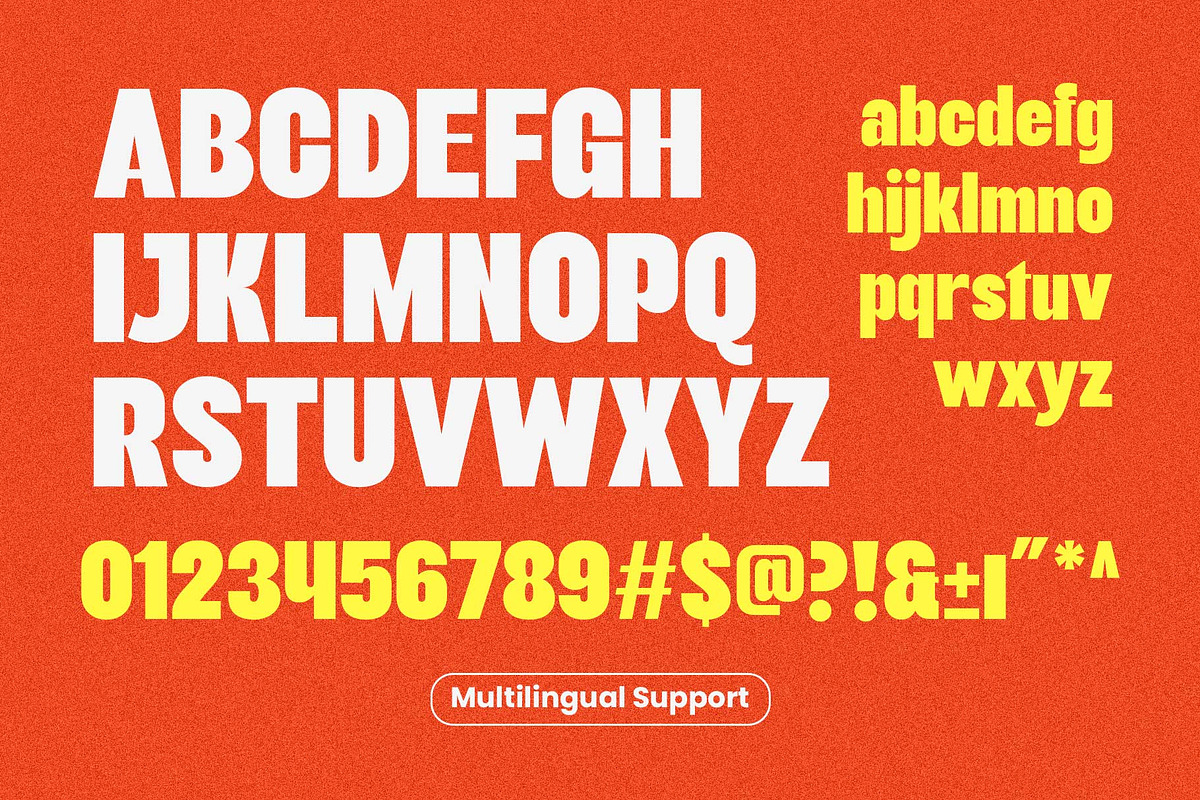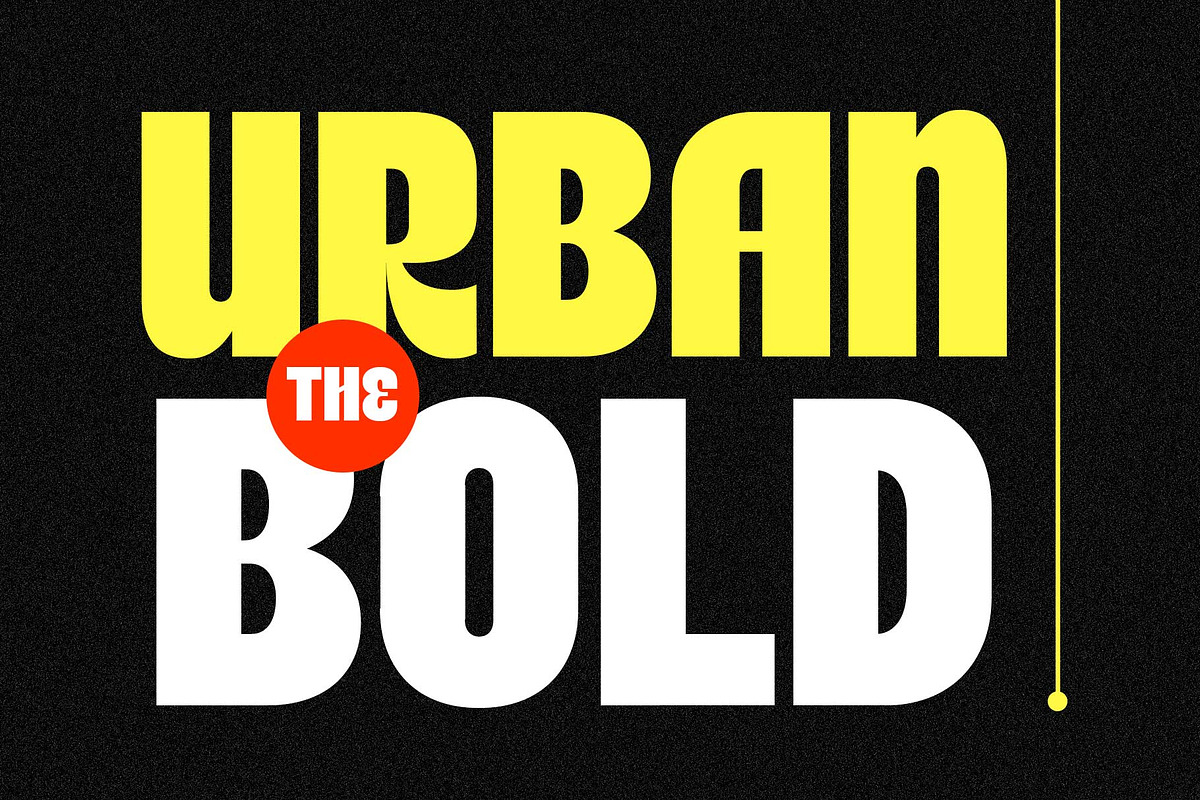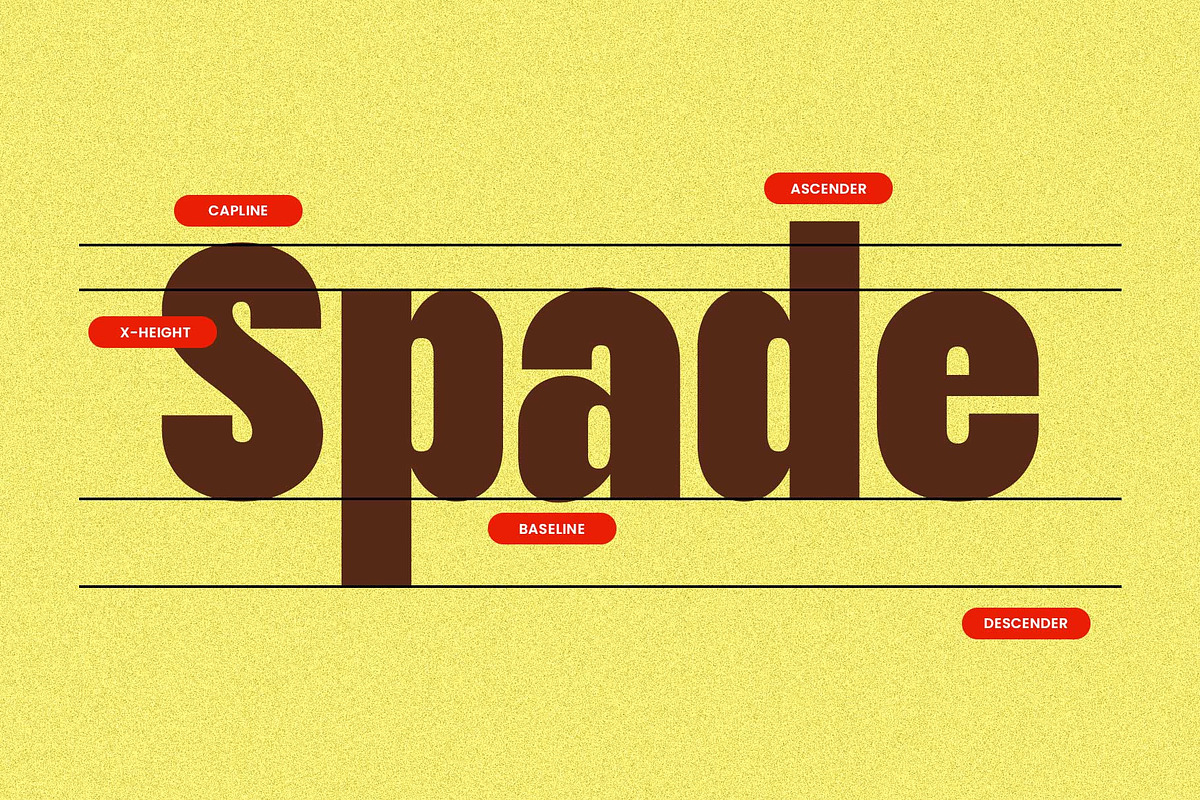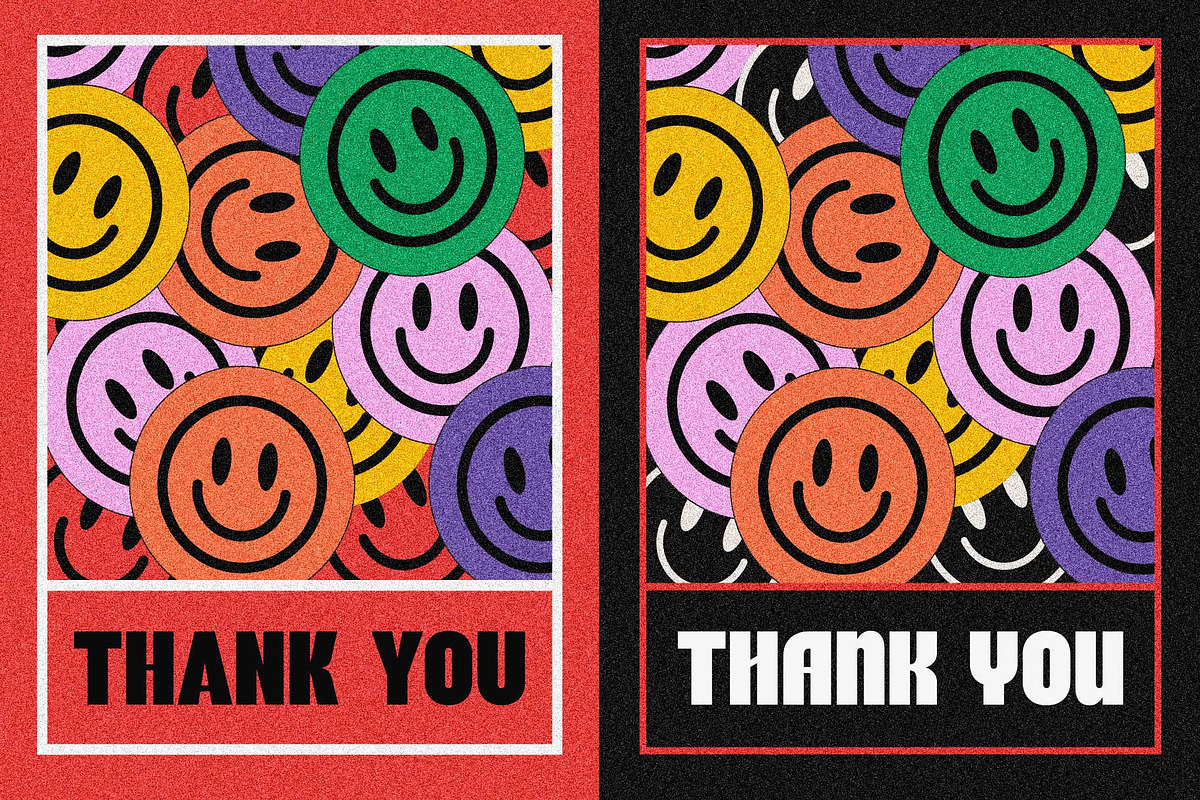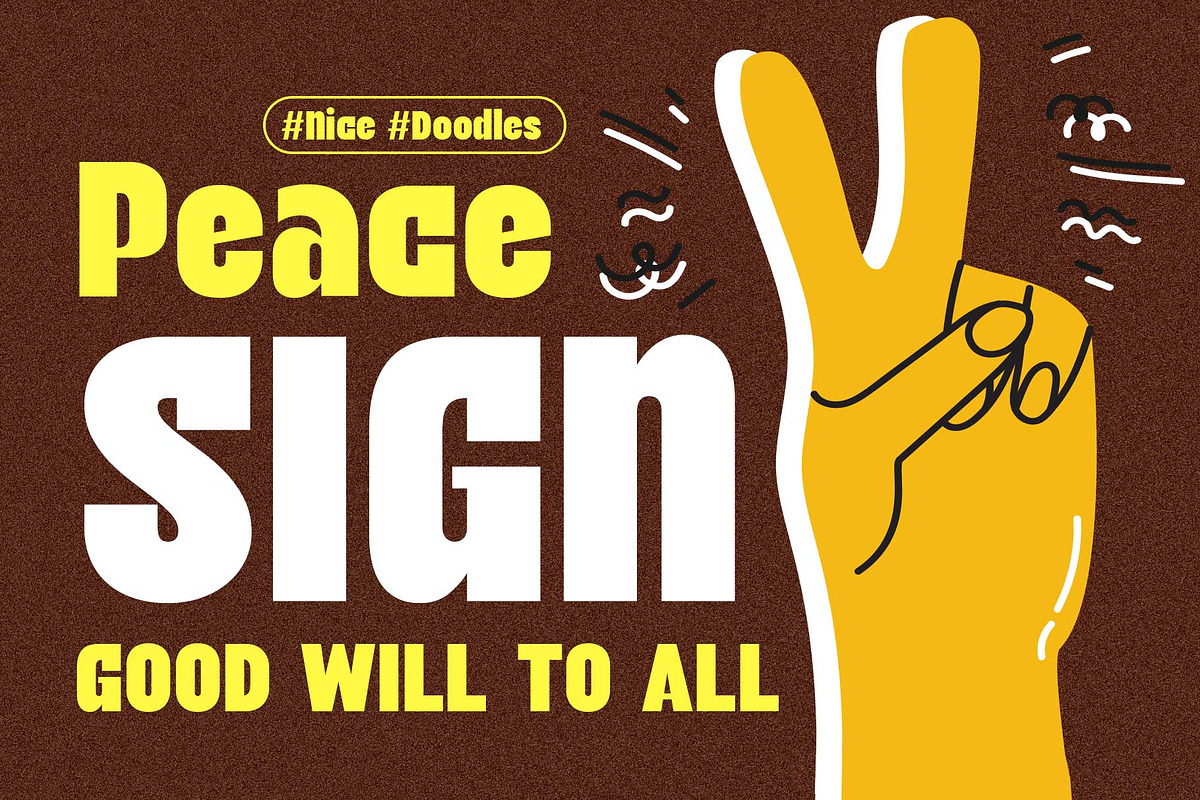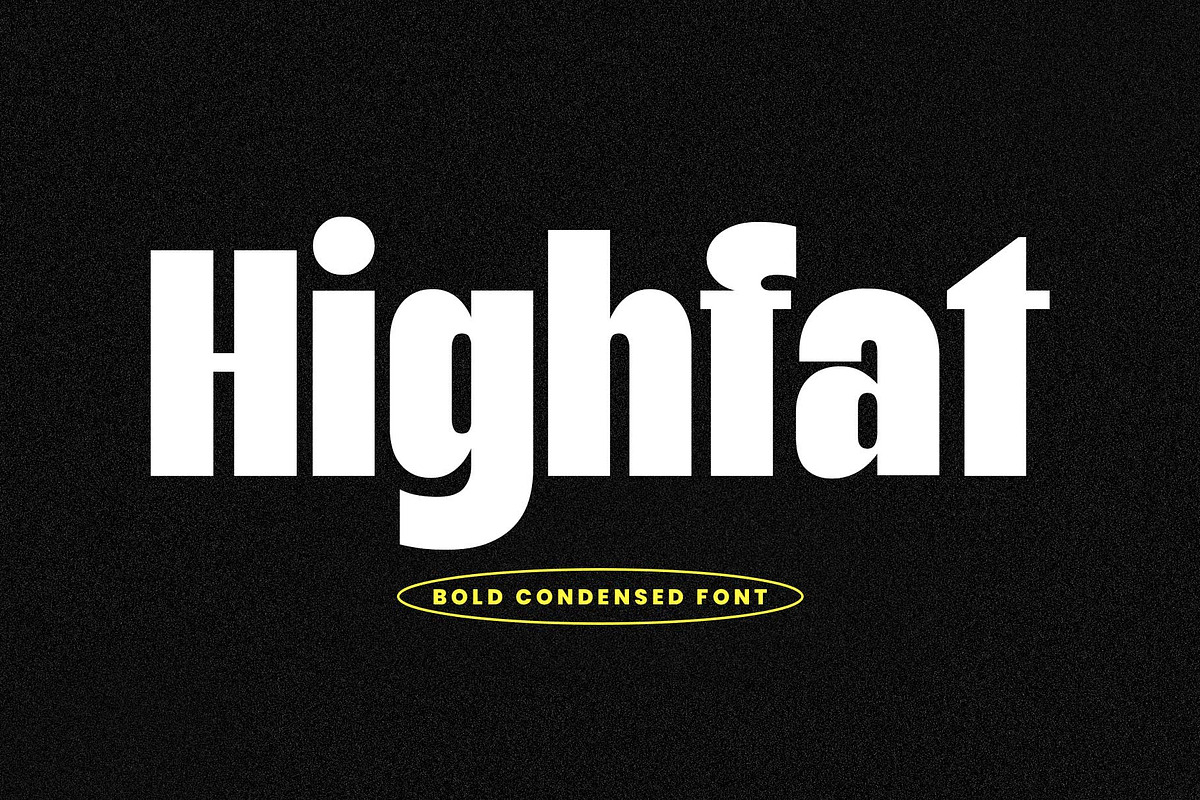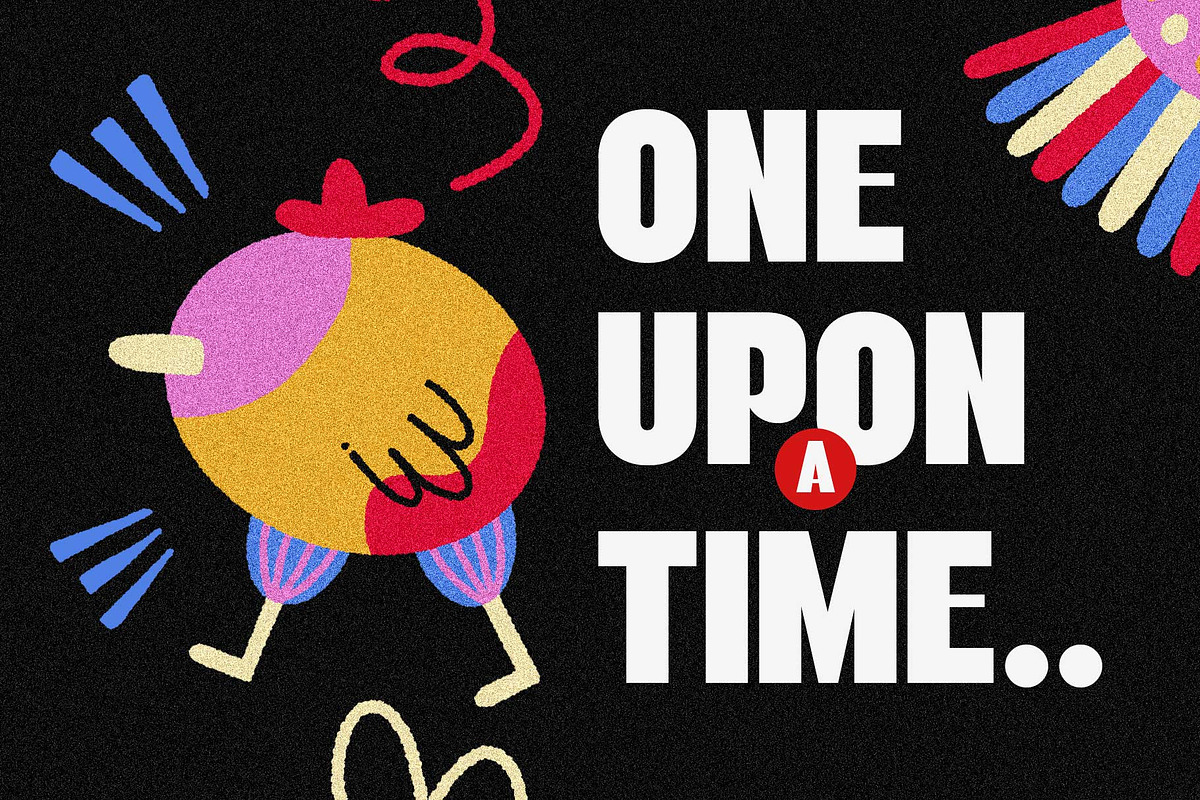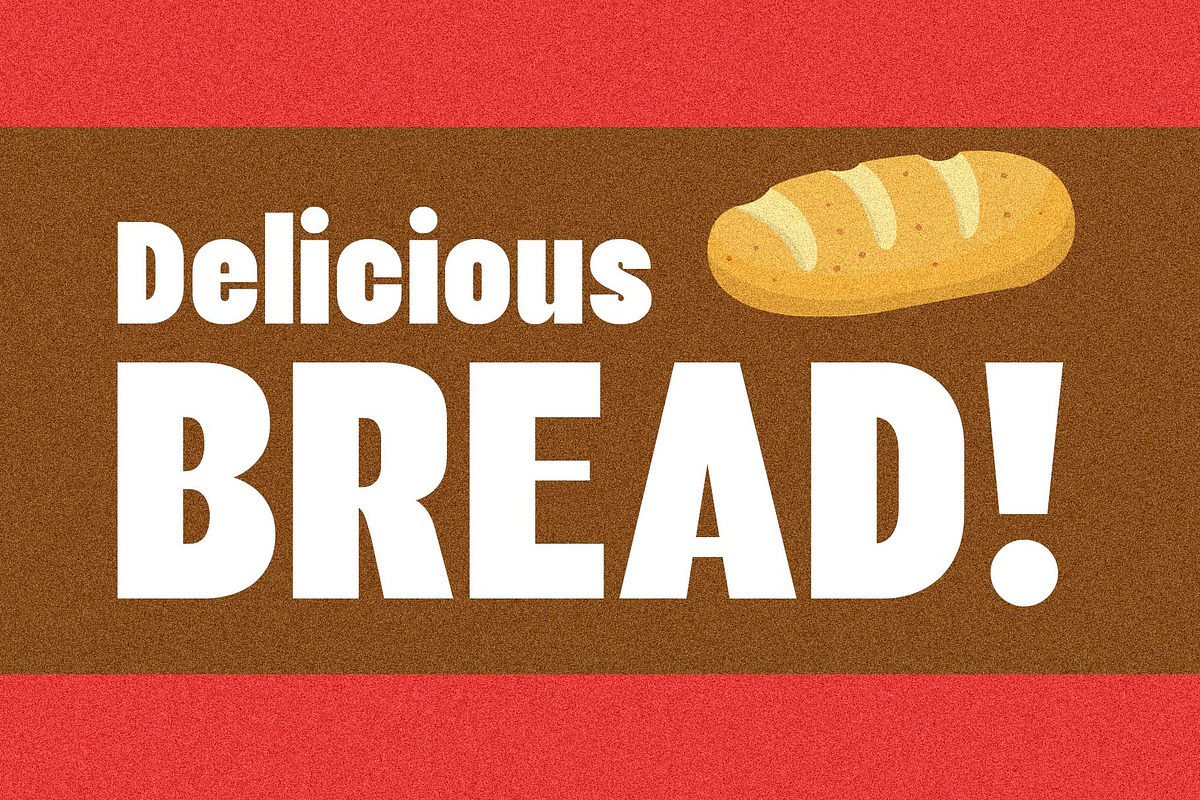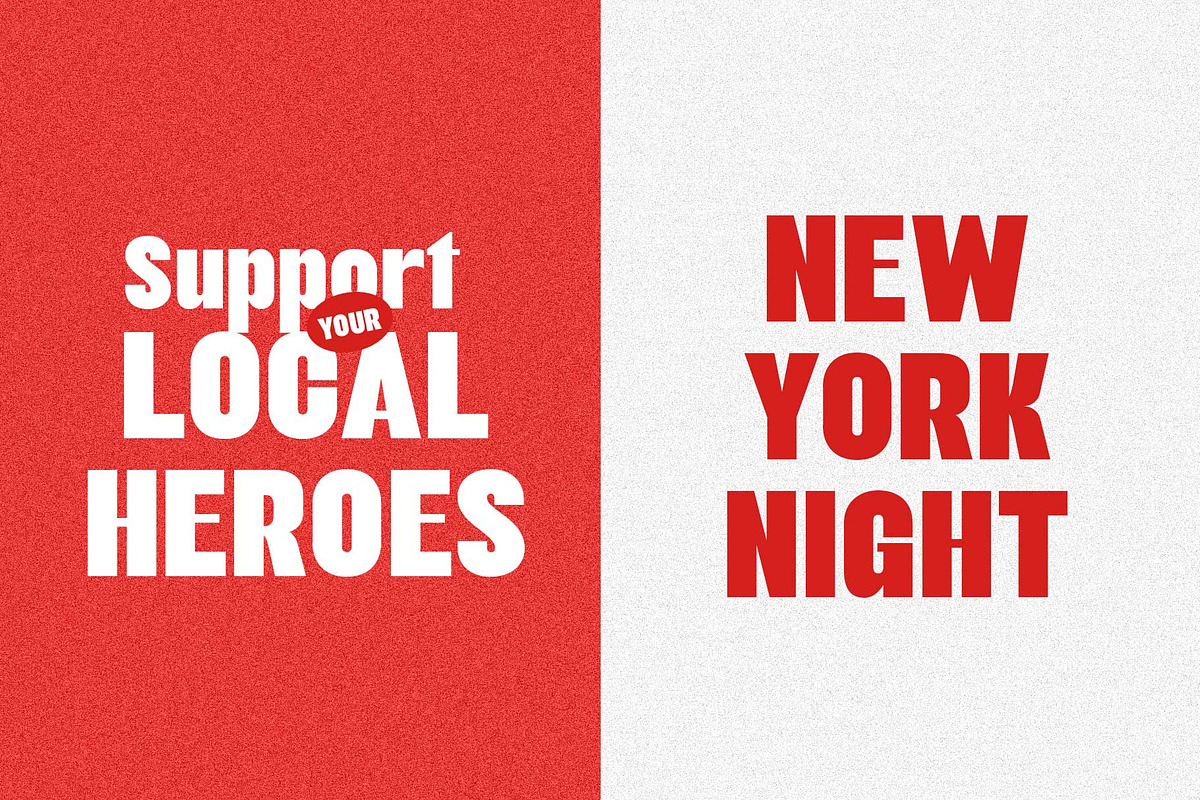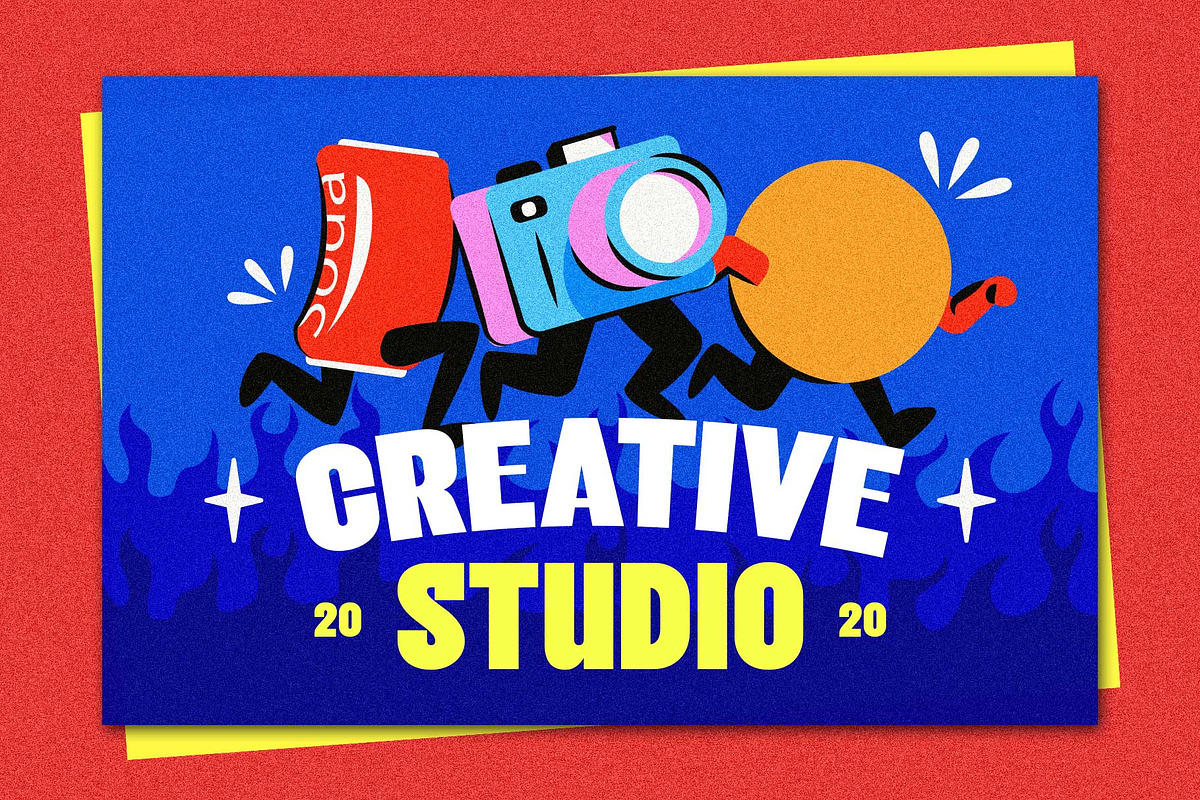
Highfat - Bold Condensed
Highfat is a clearly bold condensed font, inspired by retro bold typography and modern sans serif styles, seamlessly combined into a unique, fatty condensed font. Perfect for display purposes, Highfat commands attention, lending your design a thicker, more solid appearance.
This font comes equipped with stylistic alternates and ligatures, allowing for creative mixing and matching to achieve joyful designs. Highfat is ideal for creating impressive logos, bold headlines, branding, stickers, posters, flyers, or websites.
- Uppercase letters
- Lowercase letters
- Symbols & punctuation marks
- Stylistic alternates
- Multilingual support.